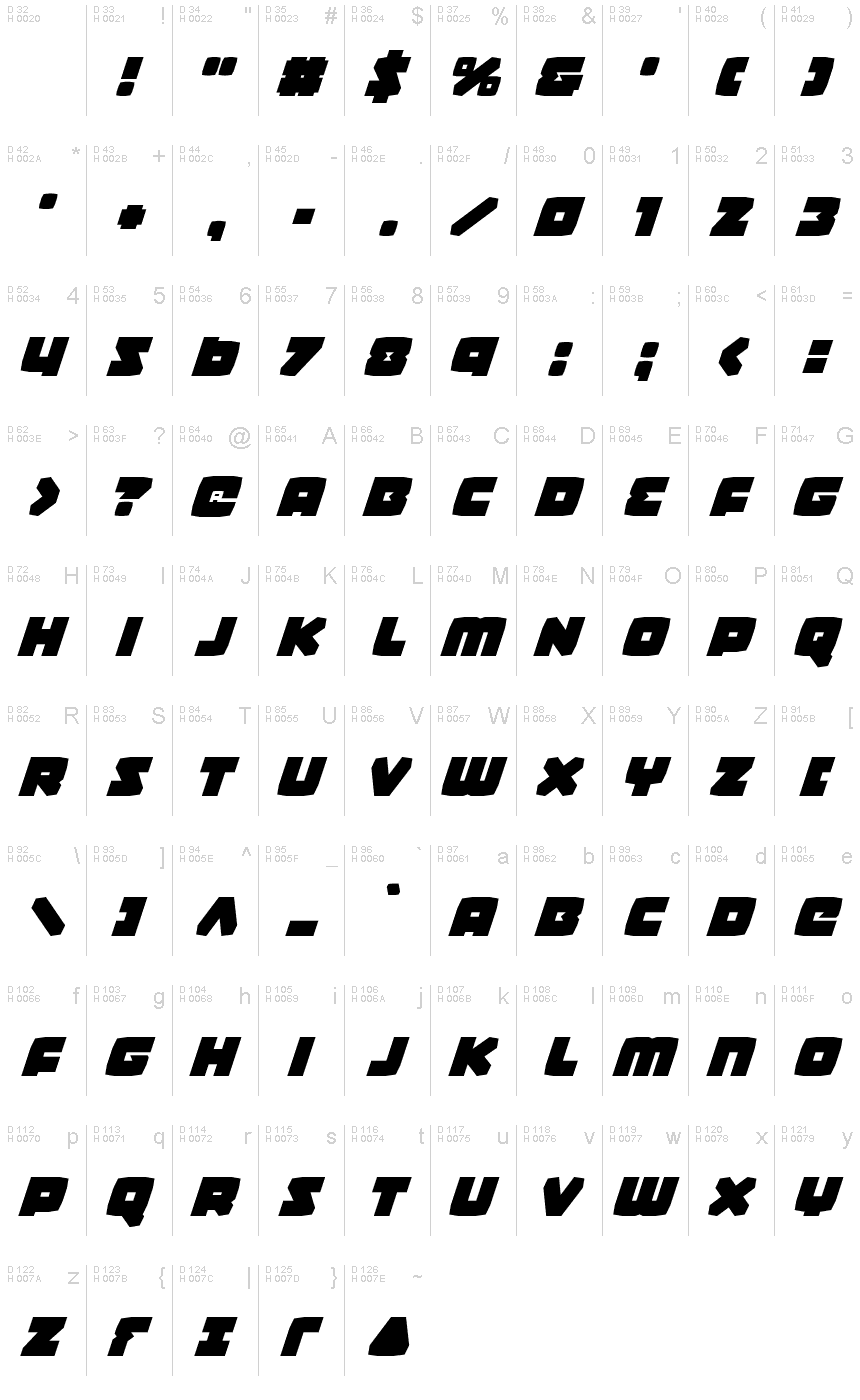
Gamer Spot Super-Italic
Gamer Spot Super-Italic is an ultra-bold, techno display font that commands attention. Its expanded width and sleek design make it the perfect choice for gaming websites, eSport team logos, and futuristic branding projects. Created by Iconian Fonts, this typeface exudes energy and excitement while maintaining legibility. The Super-Italic variation adds a dynamic twist to your text, making it stand out from the crowd. Ideal for headlines, titles or even short phrases, Gamer Spot Super-Italic is sure to leave a lasting impression on your audience. Take your design projects to the next level with this unique and powerful font!